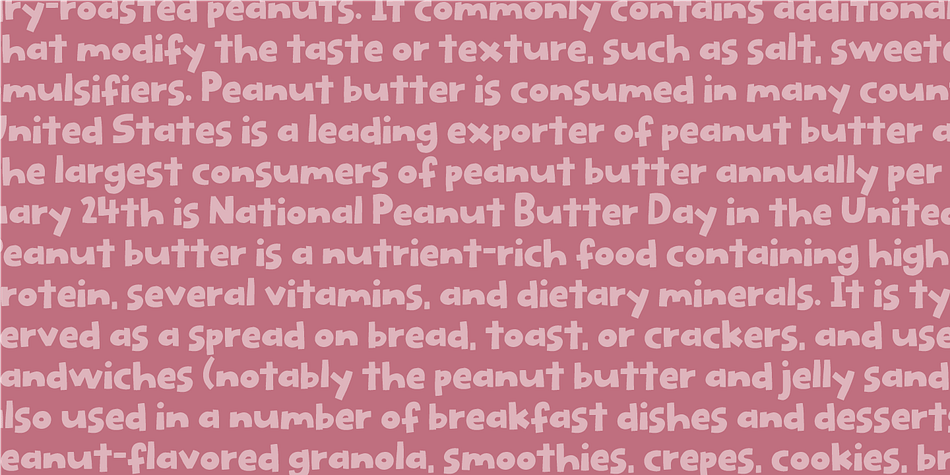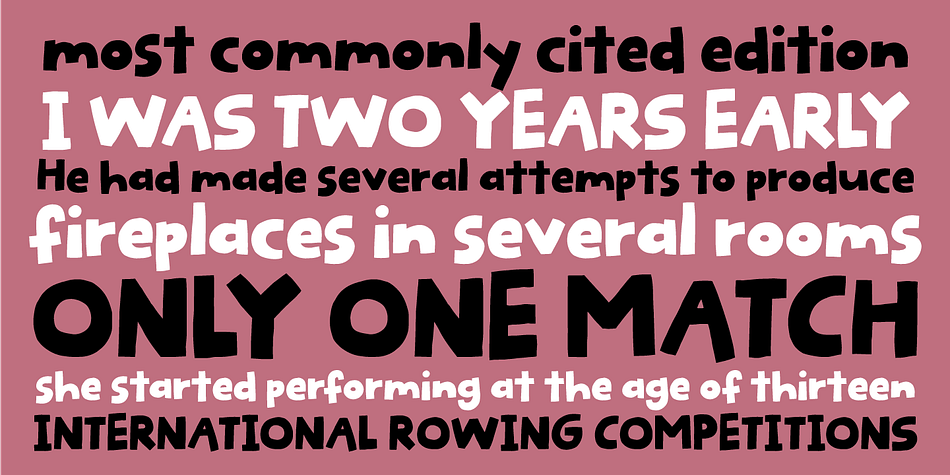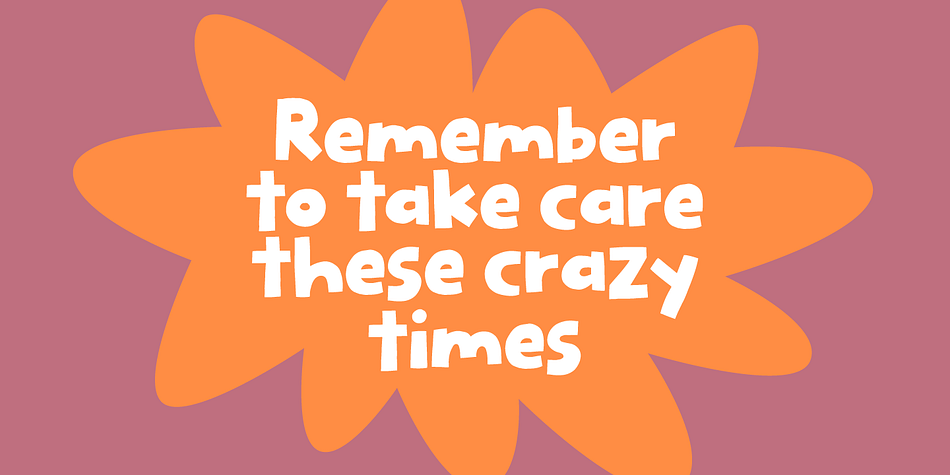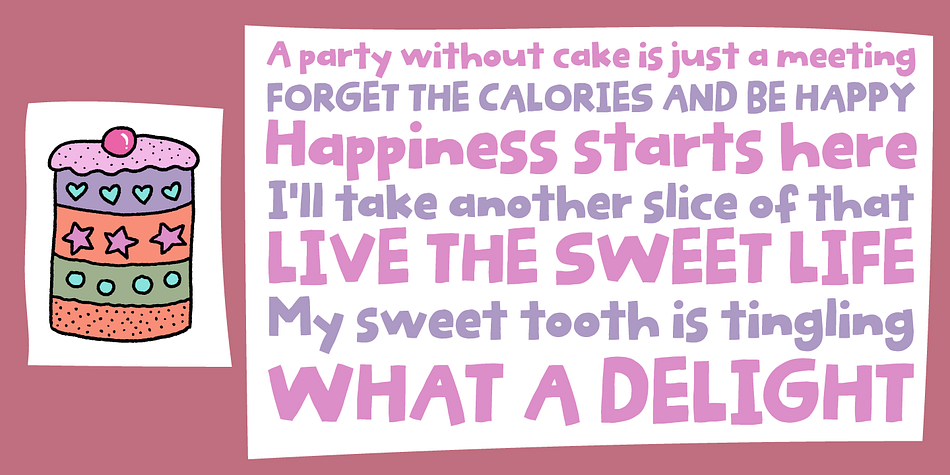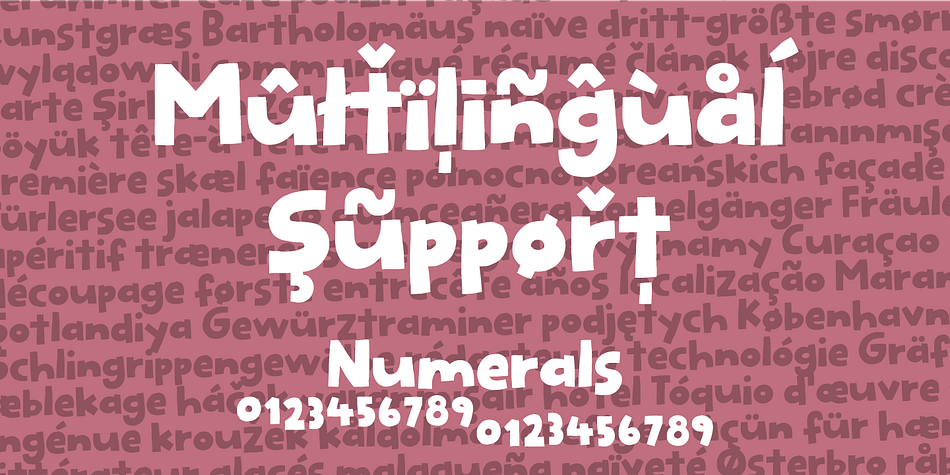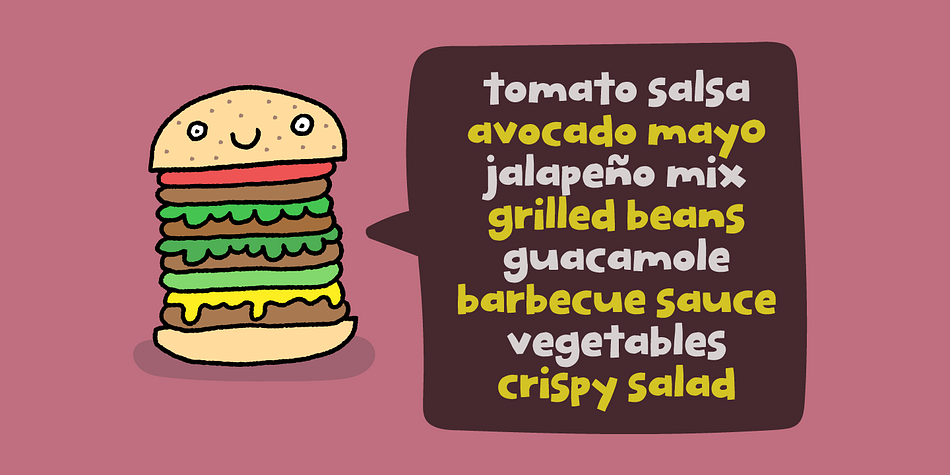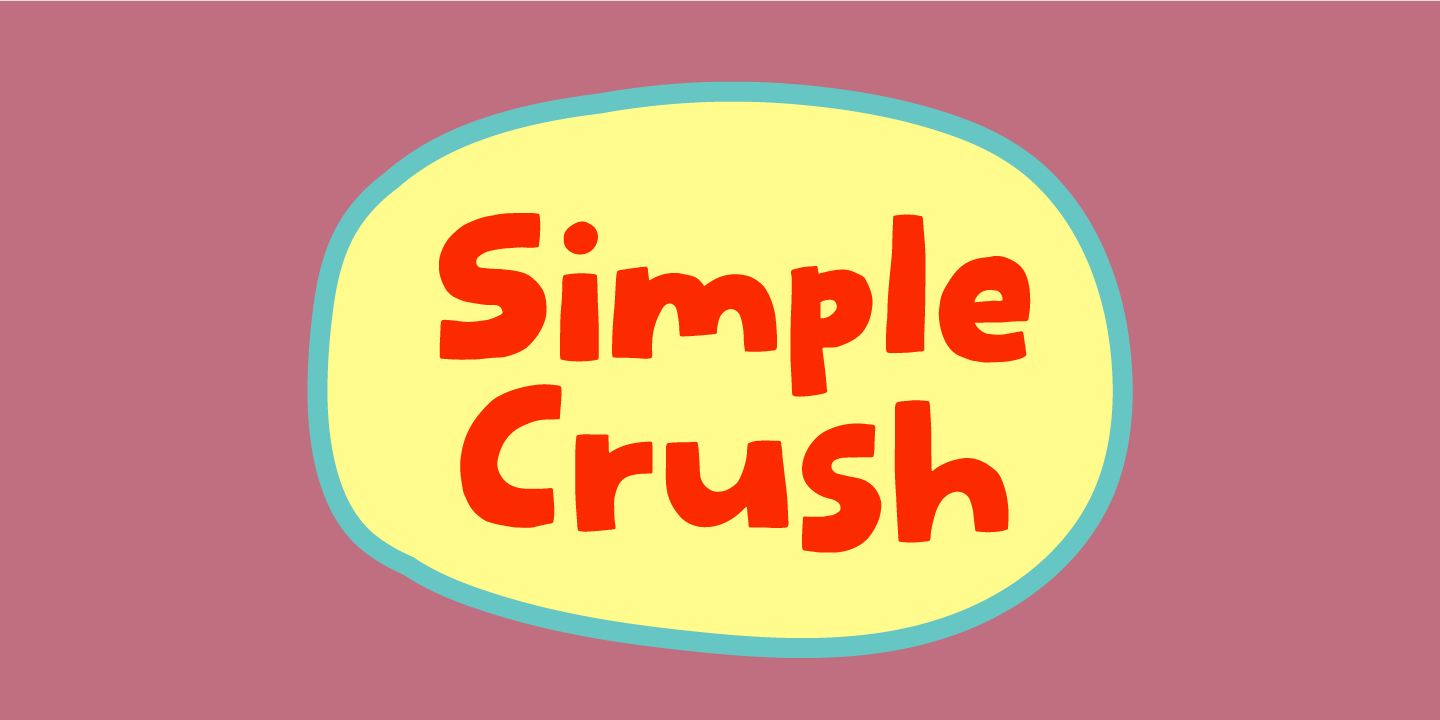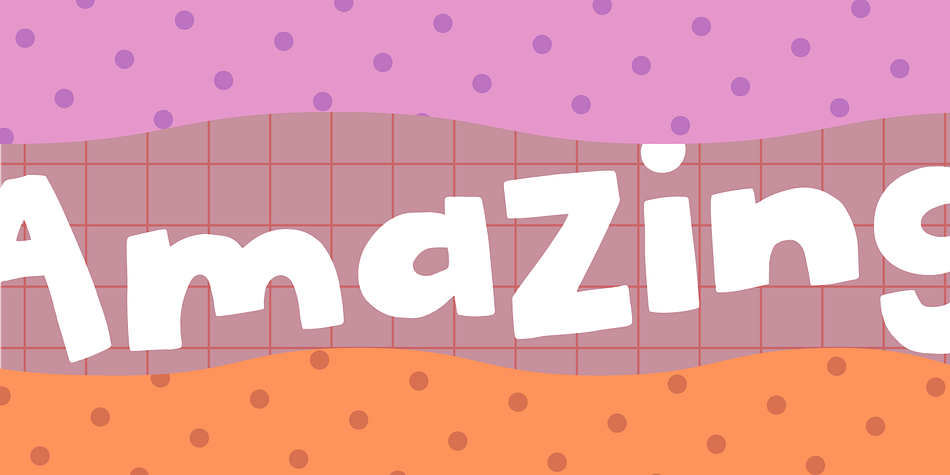
Simple Crush
Designed by Jakob Fischer, Simple Crush is a hand display and hand drawn font family. This typeface has two styles and was published by Bogstav.
Simple Crush is my down-to-earth-comic-font with no hassle! Well, actually Simple Crush might take you by surprise here and there - because there is no real rules to height, width, curves and thickness…or whatever. When it comes to Simple Crush, you’re in luck - because Simple Crush is legible and stands out as a strong comic font, ready for action…even though the mission is a party invitation, birthday, poster or products for kids and pets!